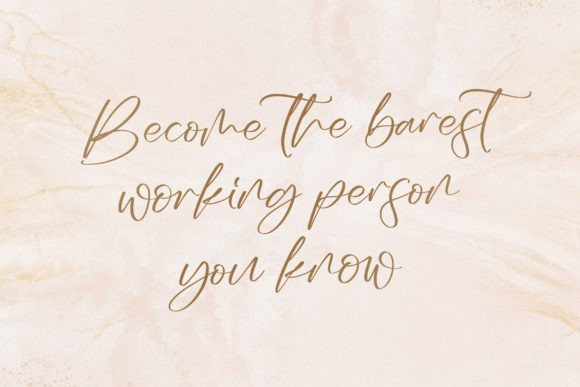
Saturday Morning Font
Saturday Morning Script Font is a unique and elegant handwritten font. It looks beautiful on a variety of designs requiring a personalized style, such as wedding invitations, thank you cards, weddings, greeting cards, logos and so on.